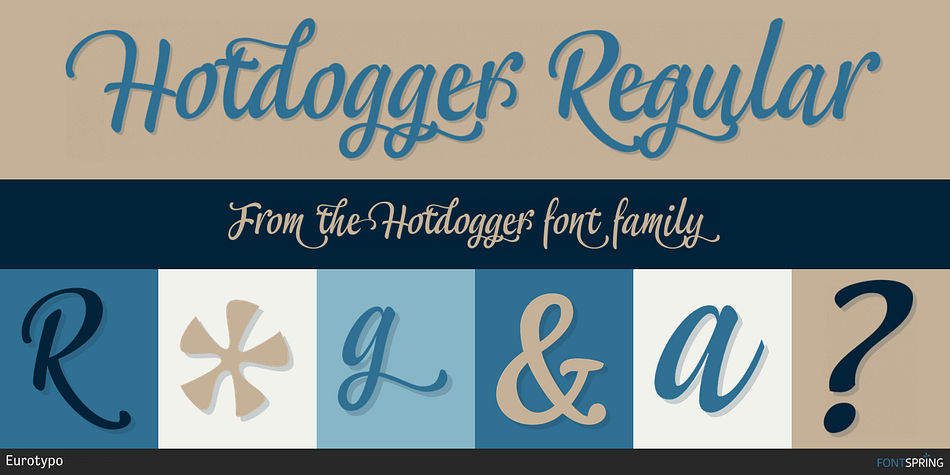
Hotdogger Regular
Designed by Olcar Alcaide, Hotdogger is a brush script, sans serif and dingbat font family. This typeface has four styles and was published by Eurotypo.
Hotdogger is family of cursive brush fonts, presented in two weight and completed with a sans serif font and an useful pack of graphics to play with. These fonts are specially designed for meal’s packagings and labels, advertising posters, lettering logos or whatever you may looking for an expressive works.